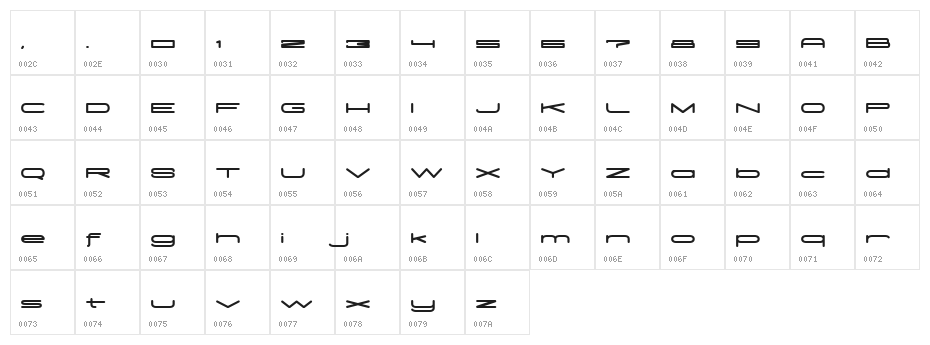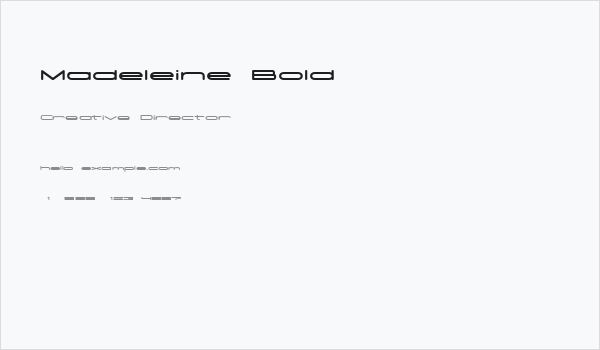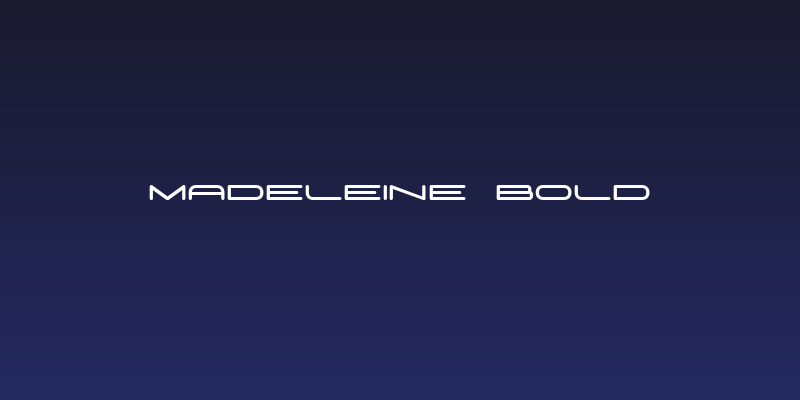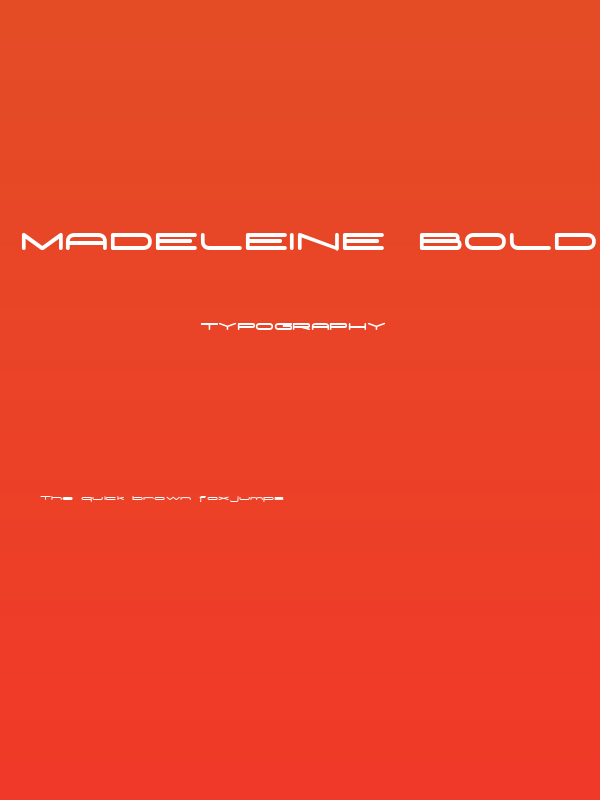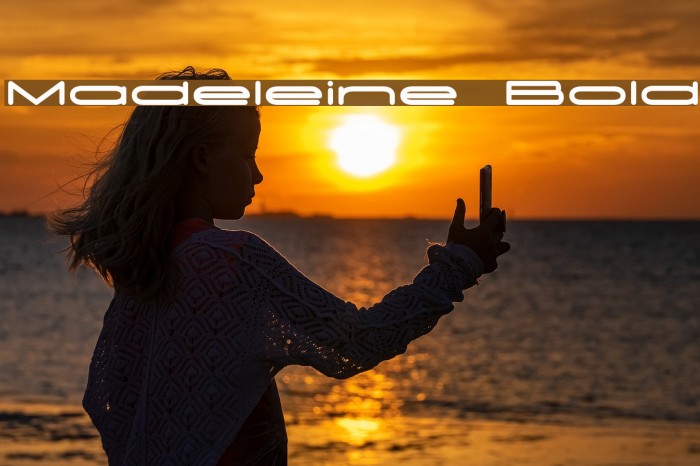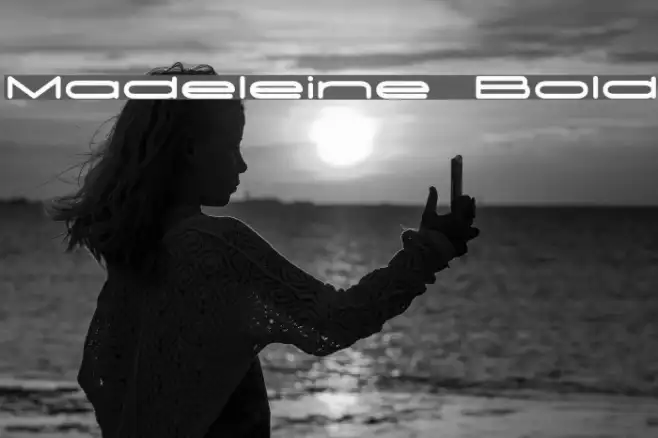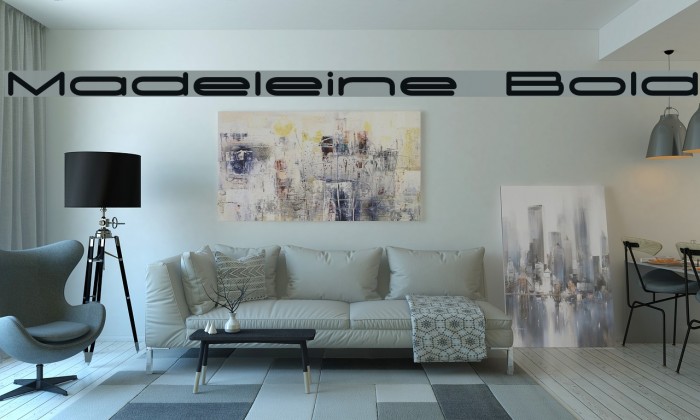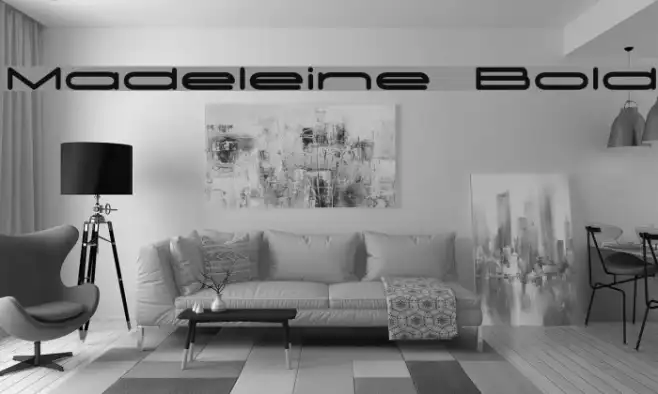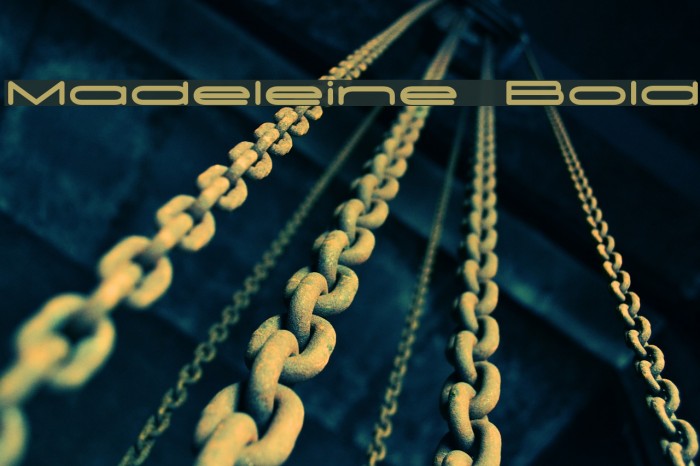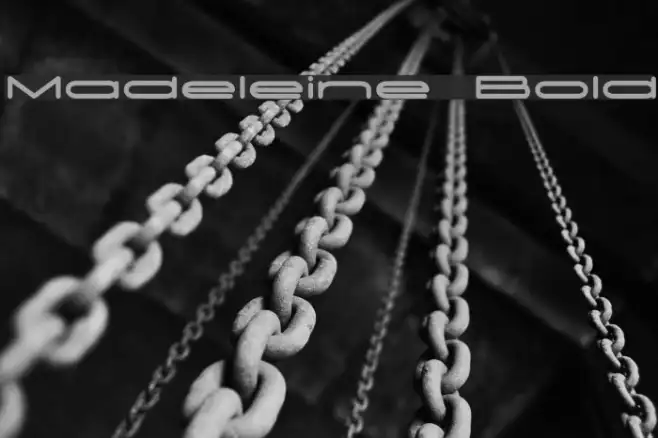
Madeleine Bold Font
Madeleine Bold Description
This font features a sleek, futuristic design with rounded edges and a geometric structure. The characters are uniform in height, creating a harmonious and balanced appearance. The uppercase letters have a distinct, modern look with clean lines and minimalistic curves. The lowercase letters maintain the same aesthetic, offering a seamless transition between cases. The numerals are bold and consistent with the overall style, ensuring readability and visual appeal. Special characters are designed to match the font's modern theme, making it suitable for contemporary projects.
| Use Case | Headlines, Logos, Digital interfaces |
| Proposed Projects | Ideal for technology branding, modern advertising, digital interfaces, and futuristic design projects. |